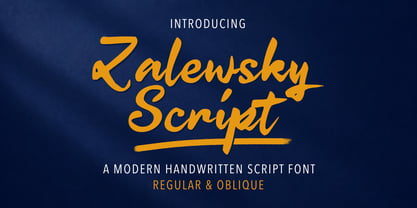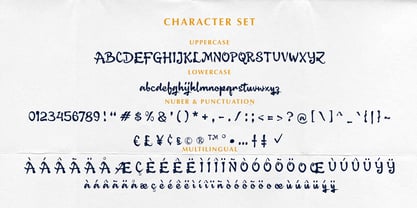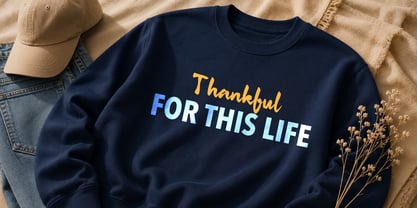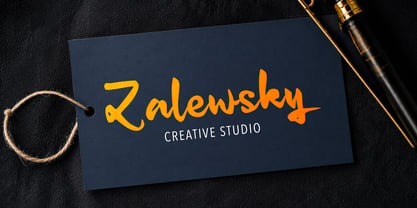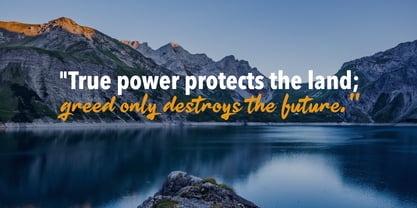
Zalewsky Script
by Letterytz CalliType
The Zalewsky Script Font Family was designed by Wahyu Eka Prasetya, Dian Angga Marytama and published by Letterytz CalliType. Zalewsky Script contains 2 styles and family package options. More about this family
Zalewsky Script is a modern handwritten script font that blends natural brush movement with elegant flowing strokes. Designed with a stylish and expressive character, this font delivers an authentic handwritten feel while maintaining excellent readability. Its smooth curves, dynamic letterforms, and confident brush texture make it perfect for creating eye-catching typography with a personal and artistic touch.
Whether you are designing branding materials, logo concepts, social media graphics, product packaging, wedding invitations, quotes, posters, apparel, or modern editorial layouts, Zalewsky Script adds warmth, charm, and sophistication to every project. The handcrafted appearance gives your designs a premium and fashionable aesthetic while still feeling natural and approachable.
Carefully crafted for versatility, Zalewsky Script works beautifully in both large display settings and smaller text applications. The flowing baseline and stylish brush details create an energetic and elegant rhythm that stands out across digital and print media.
Features:
• Uppercase & Lowercase Characters
• Numerals & Punctuation
• Multilingual Support
• Ligatures & Stylistic Alternates
• Smooth Handwritten Brush Style
• Perfect for Branding & Display Projects
• Regular Style
• Oblique Style
Zalewsky Script is ideal for:
branding, logos, signatures, fashion projects, café menus, packaging, photography watermarks, social media posts, greeting cards, wedding stationery, magazine headers, and modern handmade-style typography.
If you are looking for a font that combines elegance, creativity, and authentic handwritten energy, Zalewsky Script is the perfect choice to elevate your design projects.
Designers: Wahyu Eka Prasetya, Dian Angga Marytama
Foundry: Letterytz CalliType